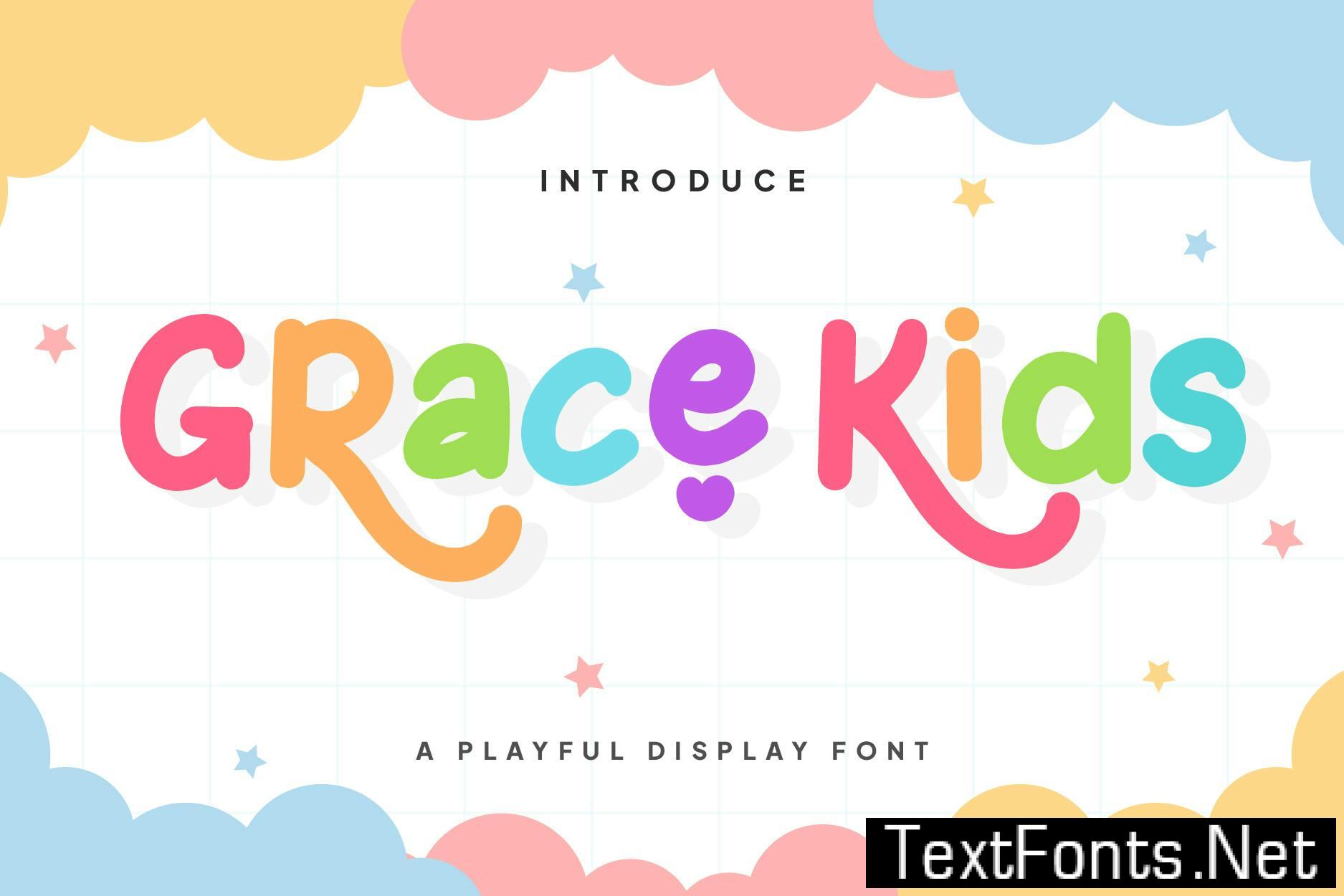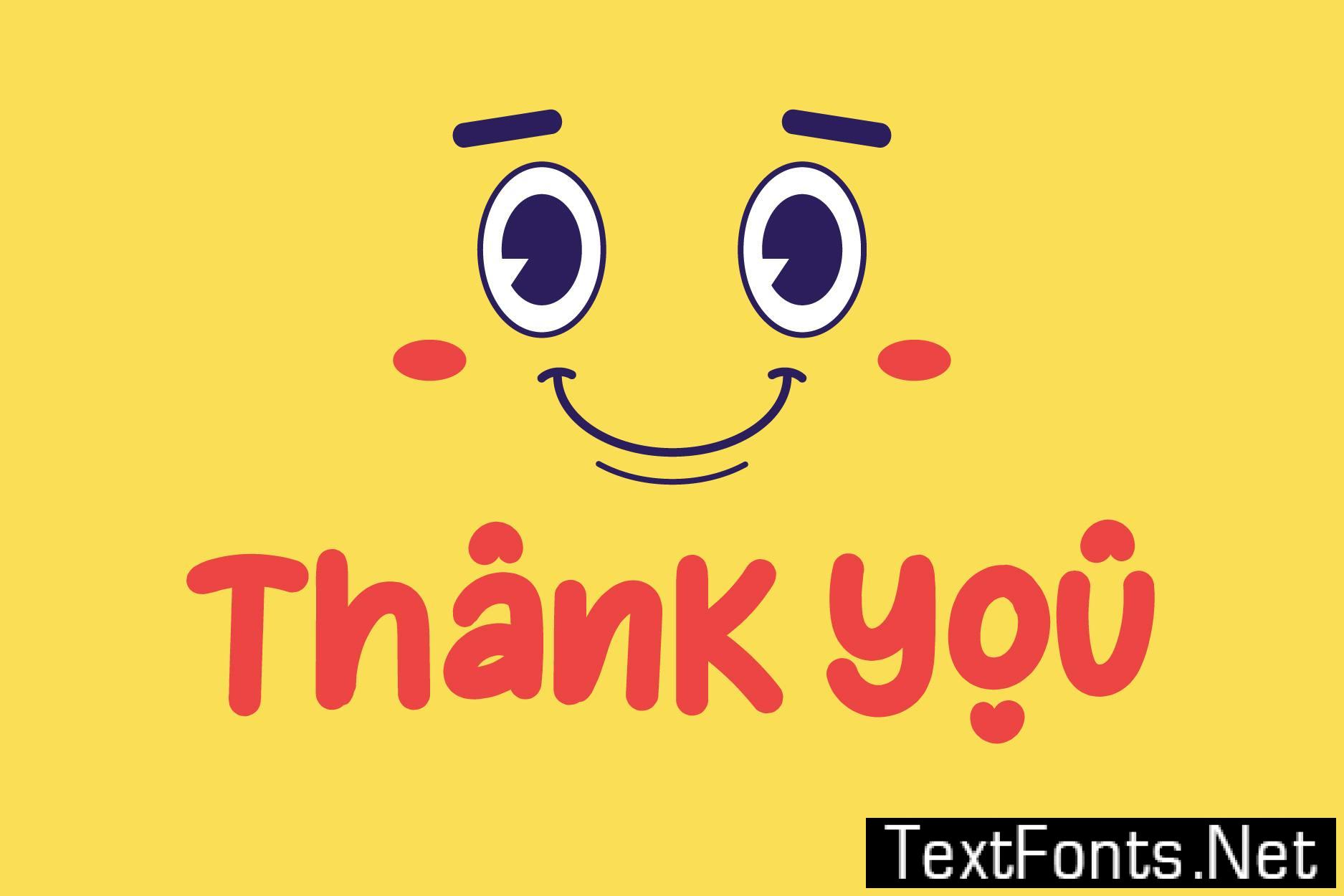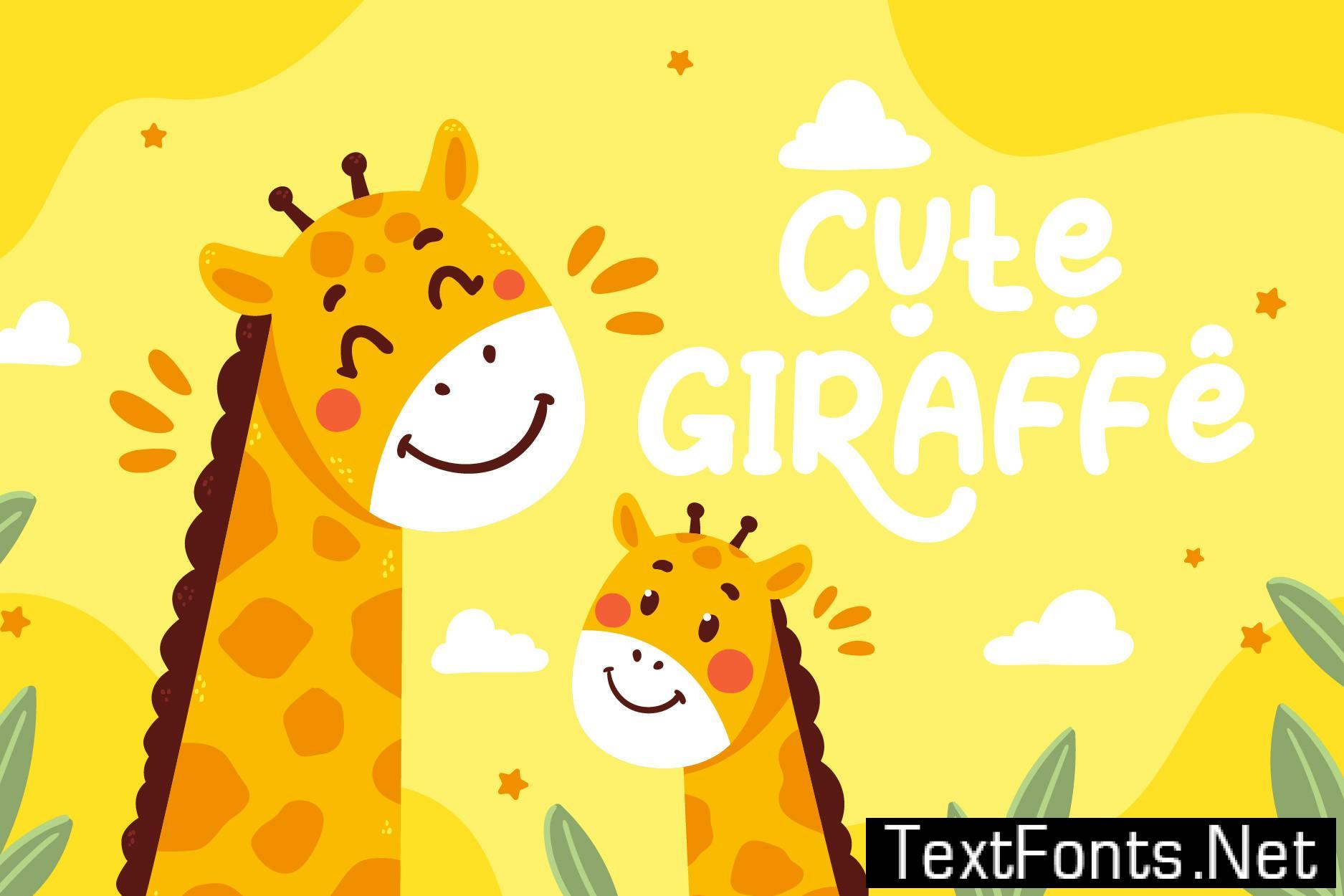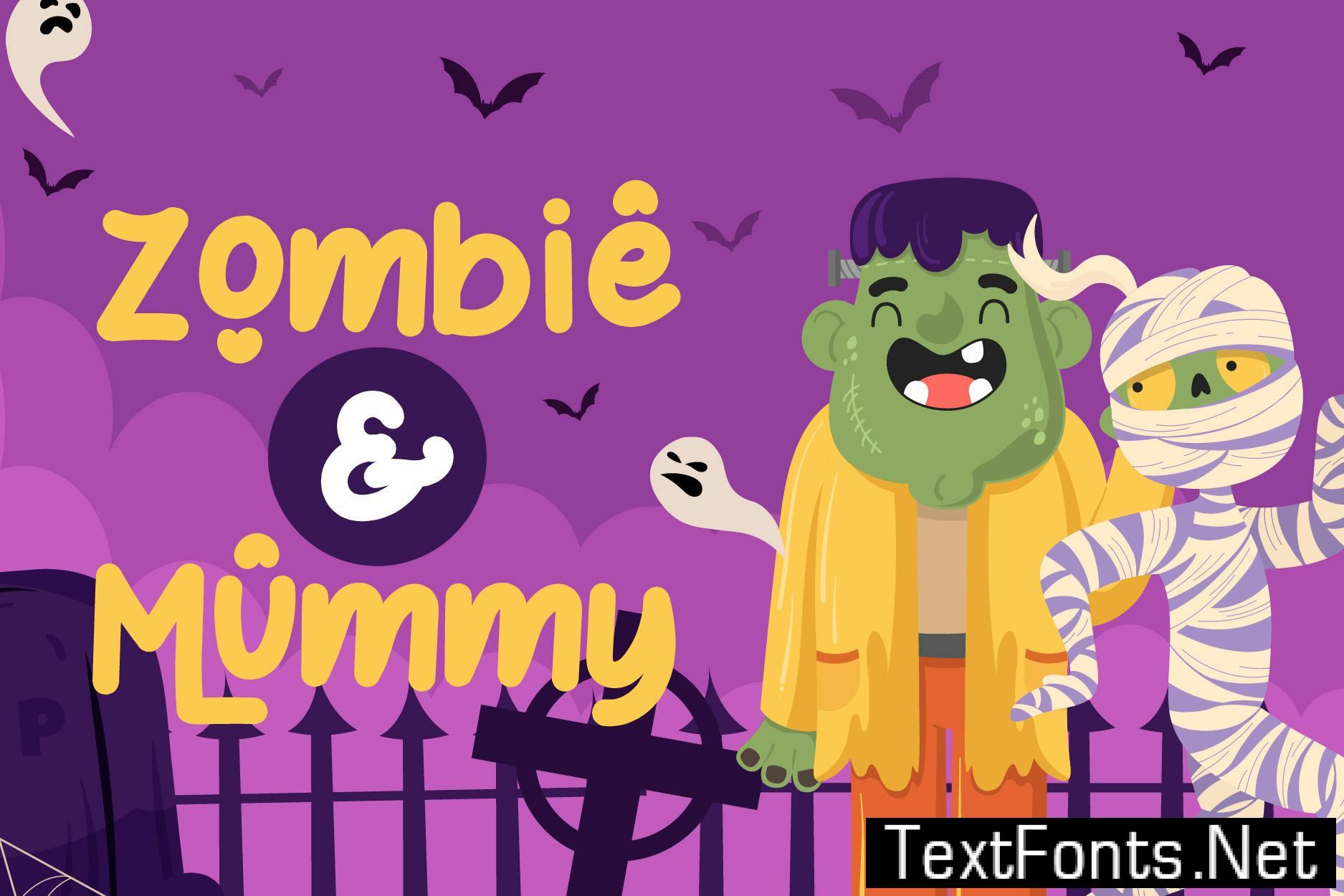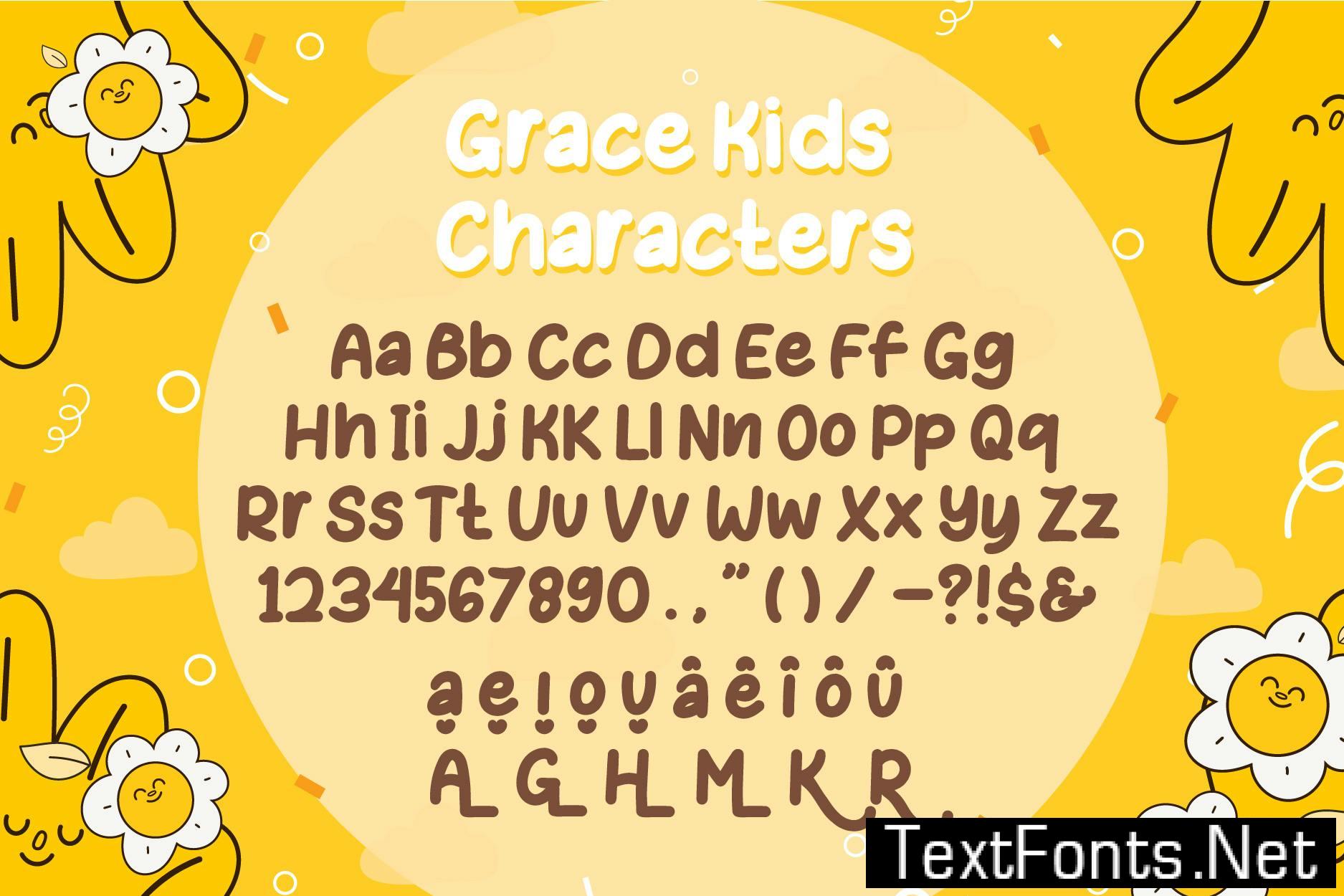
Grace Kids is a cheerful and playful display font designed to bring joy and creativity to your projects. This font is inspired by the innocence and playfulness of children.